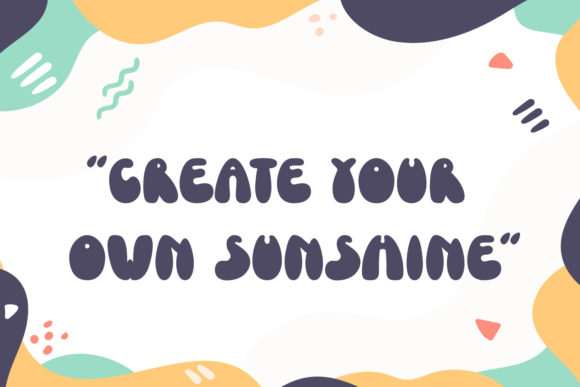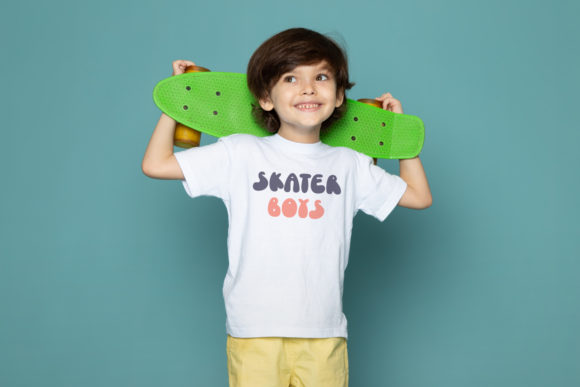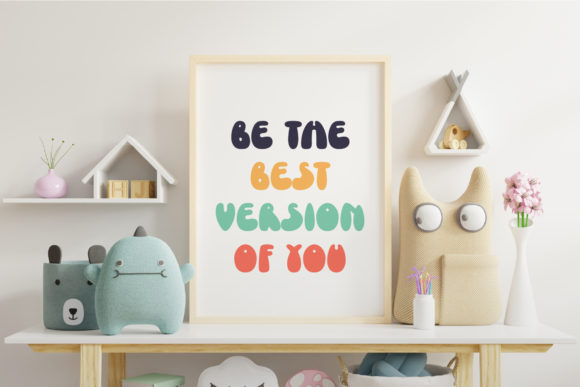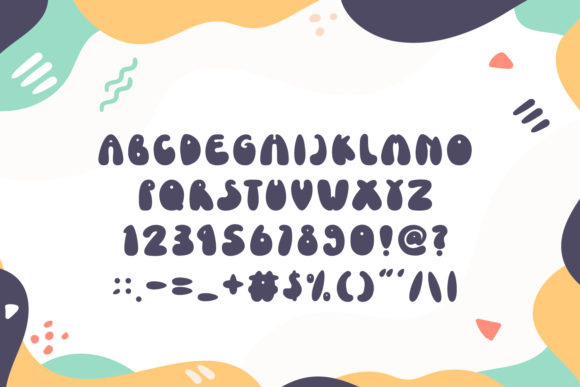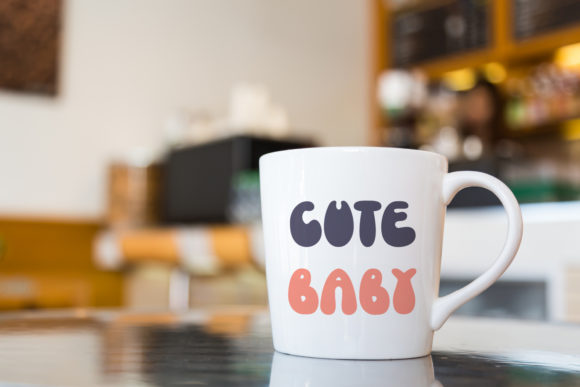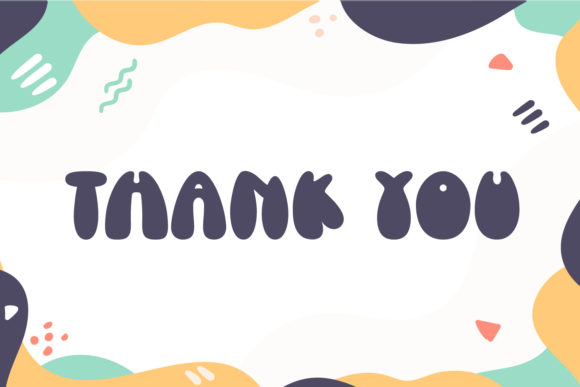
Gayatri Font: The Perfect Choice for Children-Themed Designs
Are you a designer or crafter looking for a unique and playful font to add a touch of personality to your children-themed designs? Look no further than the Gayatri Font! This charming display font is sure to capture the hearts of kids and adults alike with its chubby, rounded letters and bright, cheerful vibe.
What is Gayatri Font?
Gayatri Font is a one-of-a-kind, hand-crafted typeface designed specifically for use in children’s designs, such as kid’s party invitations, children’s book titles, and educational materials. Its distinctive, bubbly letters are carefully crafted to evoke a sense of fun and playfulness, making it the perfect choice for any project aimed at kids.
Key Features of Gayatri Font
- Unique and Chubby Lettered Design: Gayatri Font boasts a distinctive, rounded letter design that sets it apart from more traditional fonts.
- Perfect for Children-Themed Designs: The playful and cheerful vibe of Gayatri Font makes it an ideal choice for any design project aimed at kids.
- Highly Versatile: Gayatri Font can be used in a wide range of design applications, from digital projects to print materials.
- Easily Readable: Despite its playful design, Gayatri Font is highly legible, making it suitable for use in titles, headings, and short paragraphs.
Why Choose Gayatri Font?
So, what makes Gayatri Font the go-to choice for designers and crafters working on children-themed projects? Here are just a few reasons why Gayatri Font stands out from the crowd:
- Instant Recognition: The unique design of Gayatri Font ensures that your designs will stand out and grab attention.
- Emotional Connection: The playful, cheerful vibe of Gayatri Font helps create an emotional connection with kids and parents alike.
- Flexibility: Gayatri Font can be used in a wide range of design applications, from digital projects to print materials.
Tips for Using Gayatri Font
To get the most out of Gayatri Font, here are a few tips to keep in mind:
- Pair with Bright Colors: Combine Gayatri Font with bright, cheerful colors to create a truly eye-catching design.
- Experiment with Sizes: Don’t be afraid to experiment with different font sizes to create visual interest and hierarchy in your design.
- Keep it Simple: While Gayatri Font is perfect for kids’ designs, it’s still important to keep your overall design simple and easy to read.
In conclusion, Gayatri Font is a unique and versatile display font that’s perfect for children-themed designs. Its chubby, rounded letters and playful vibe make it an instant favorite among kids and adults alike. Whether you’re a designer or crafter, Gayatri Font is a great choice for any project aimed at kids. So why wait? Download Gayatri Font today and start creating fun, engaging designs that kids will love!